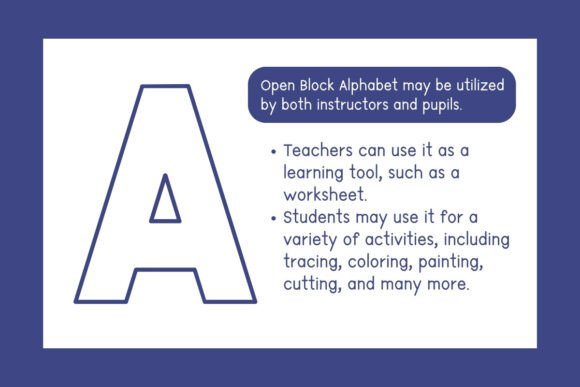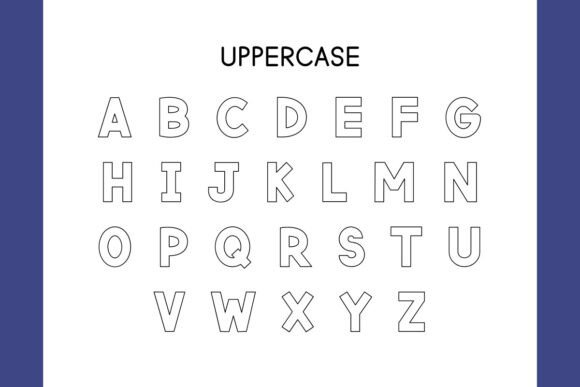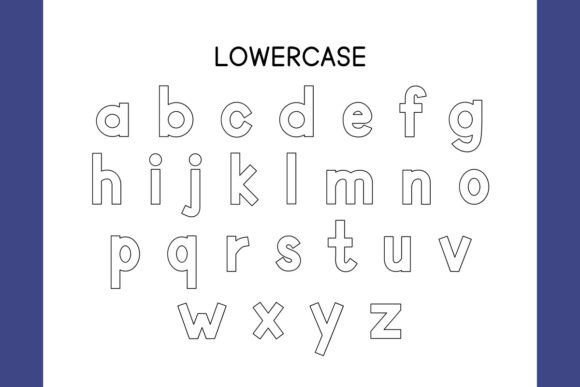
Open Block Alphabet Font
“Open Block Alphabet” is a simple and versatile font designed to inspire creativity and make learning English letters fun for children. With clean, easy-to-recognize shapes, this font encourages kids to use their imagination while mastering letter formation and recognition. Its open-ended design is perfect for various activities like coloring, painting, gluing, cutting, and collage making, providing endless opportunities for hands-on learning. Ideal for teachers creating worksheets and exercises, “Open Block Alphabet” is a great tool to enhance children’s learning experiences in the classroom or at home.